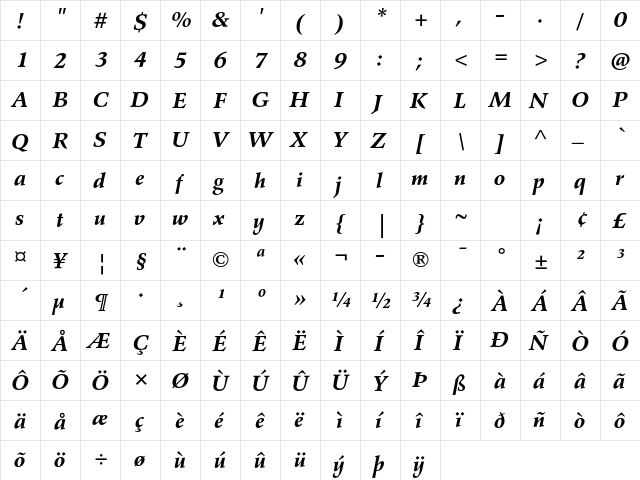
Agfa Wile Roman Std Bold It
Design Context for Agfa Wile Roman Std Typeface
Agfa Wile Roman Std offers clean, dependable letterforms without strong stylistic allegiance, making it a practical choice for designers who need flexibility. Its bold stroke weight gives it real presence on the page.